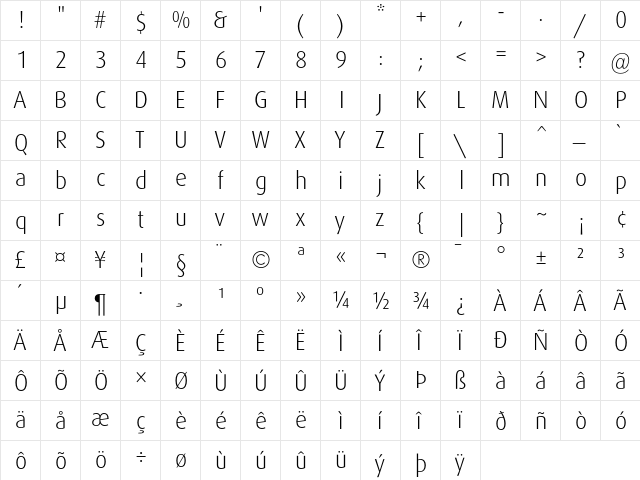
Dax Light Font Preview
Dax Light
Design Context for Dax Typeface
Dax takes a measured approach to typography — its balanced proportions and neutral character make it a reliable workhorse for both digital and print work. Its slender proportions lend an understated elegance to any composition.
Pro Tip: Use Dax in both headline and body roles to test its range before committing to a single application.